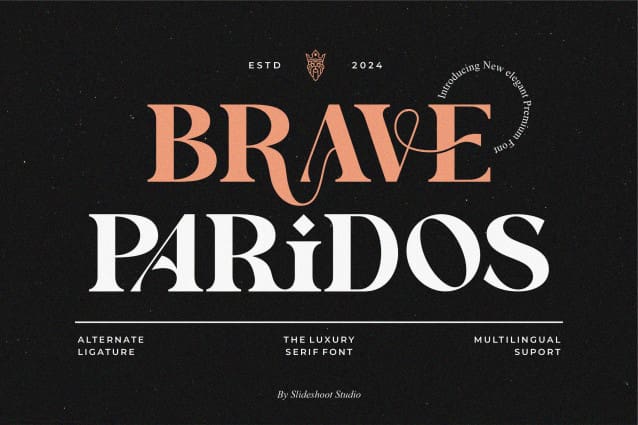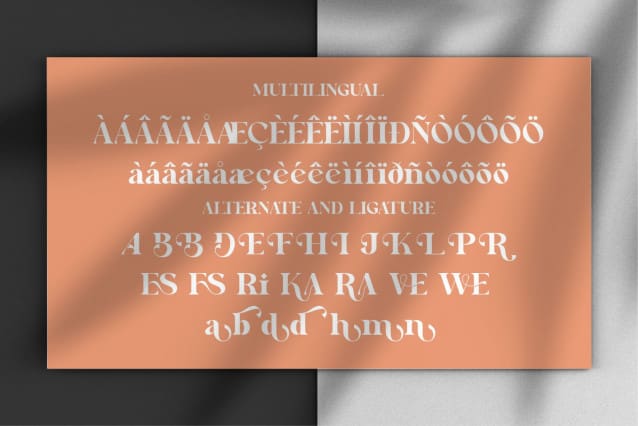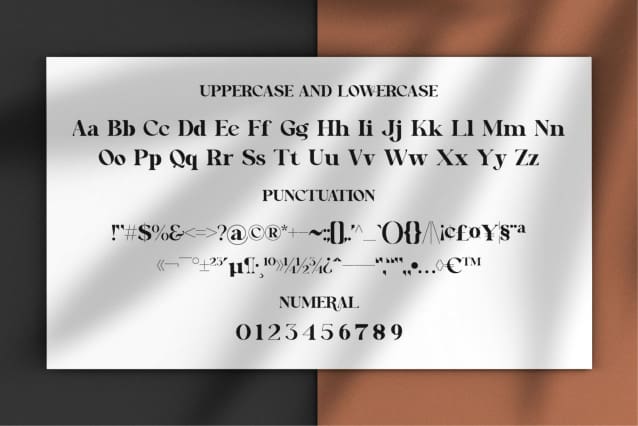
Brave Paridos Font
Brave Paridos Font is a modern serif font, combining luxury and elegance. This font attracts attention and beautifies any design. This font is perfect to be combined with invitation card designs, company logos, movie titles, movie names, business cards, book titles, brand names, and various other designs. Brave Paridos is a modern serif font that exudes sophistication and cohesion. Its stylish changes and ligatures make this font a perfect partner for any project.